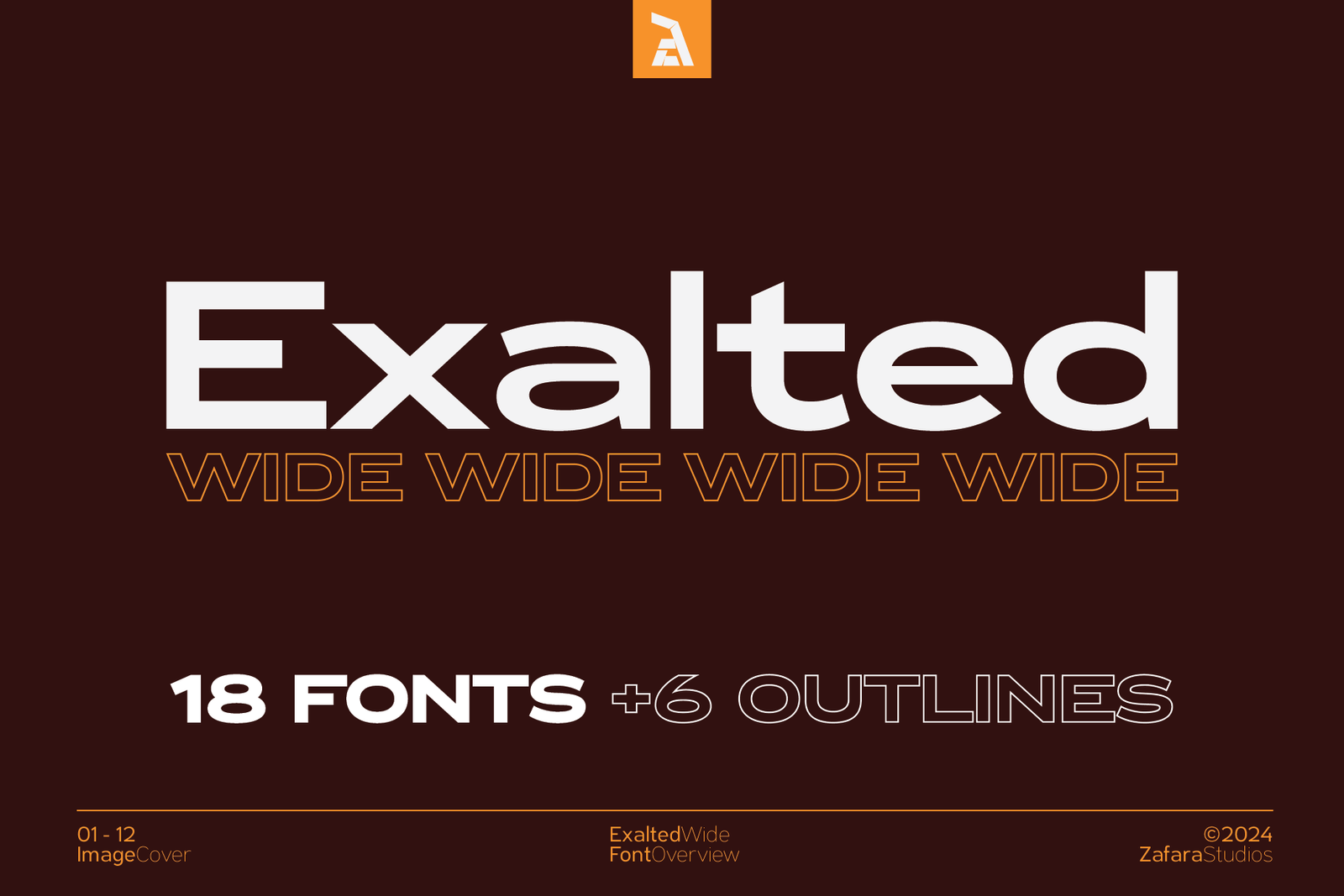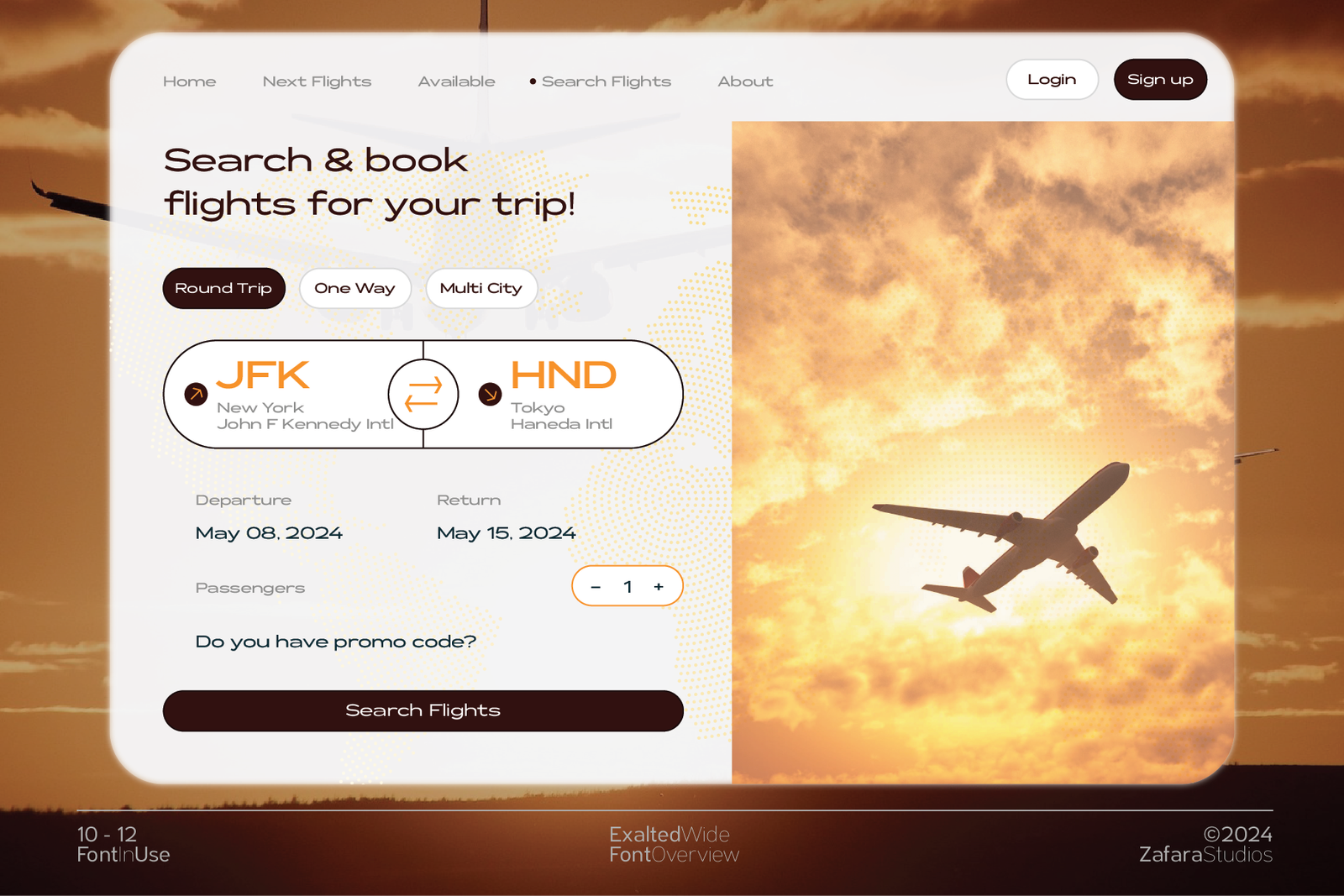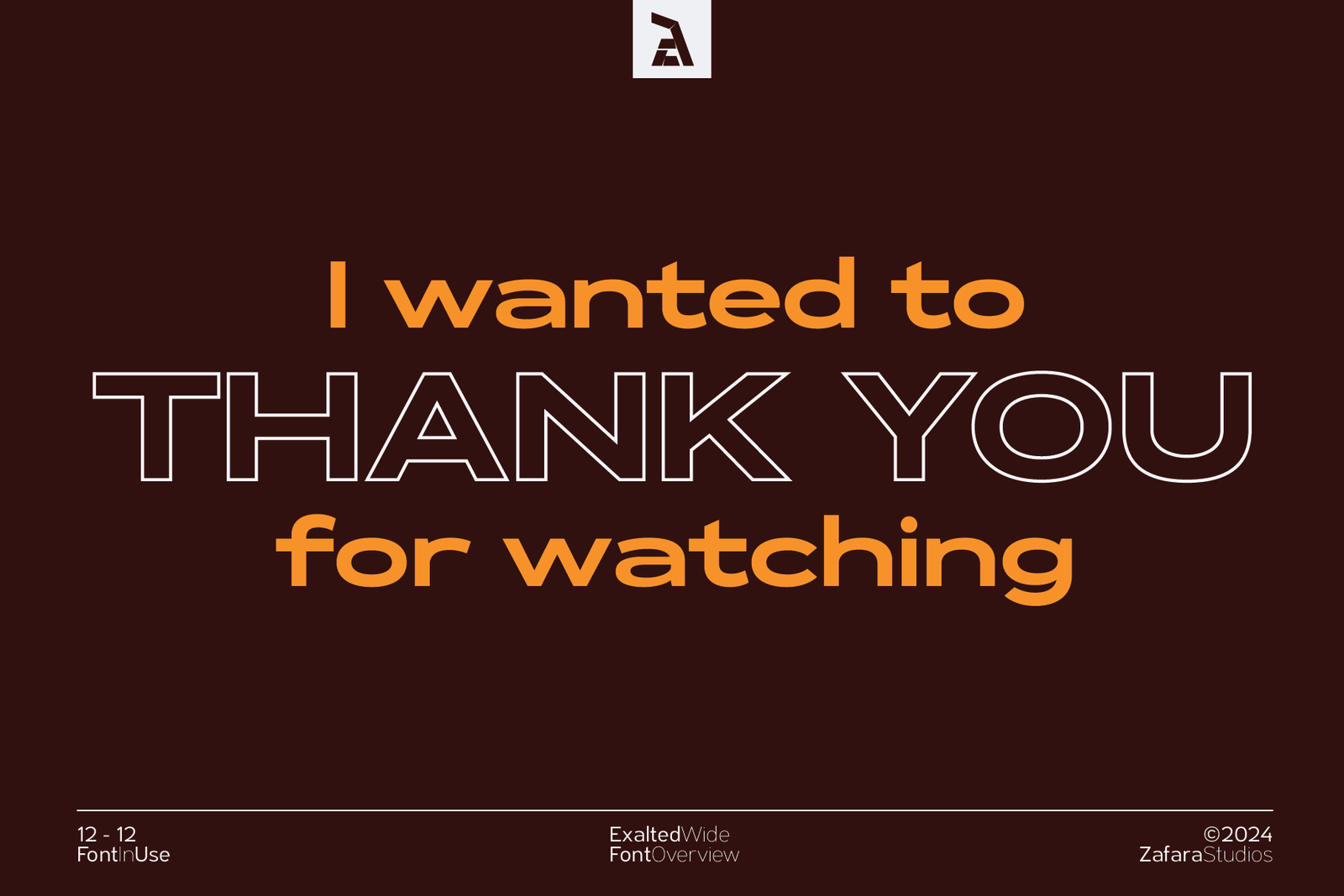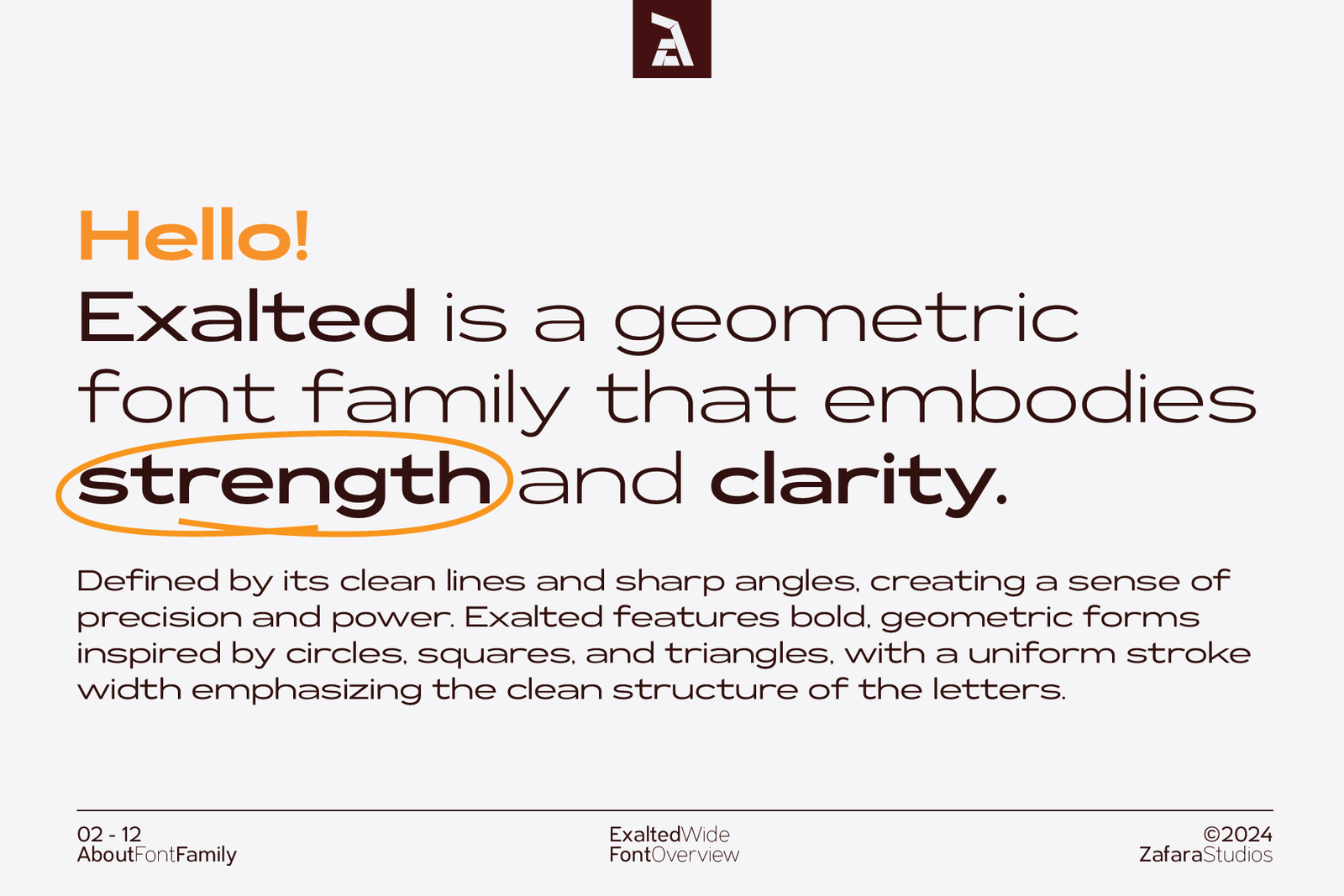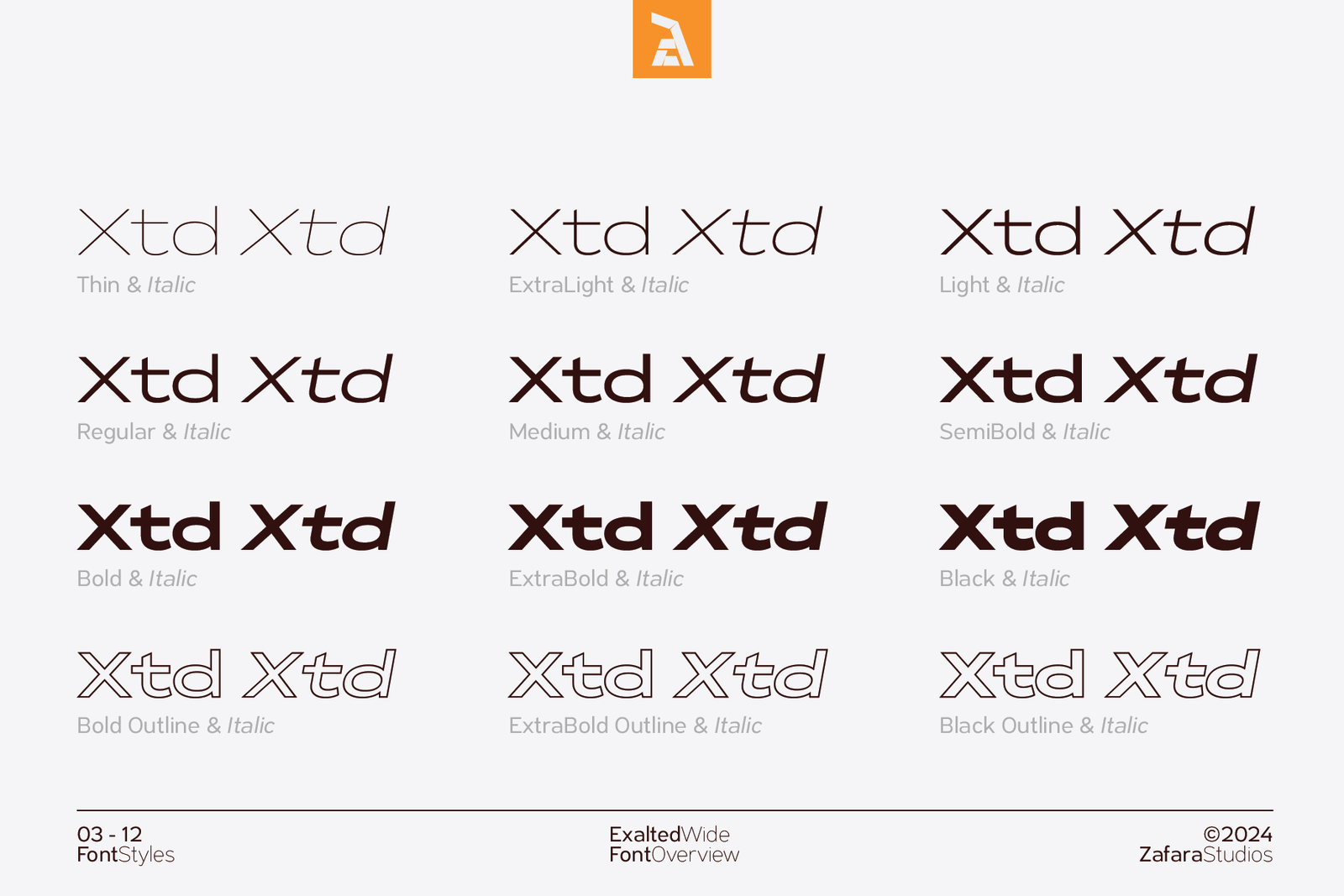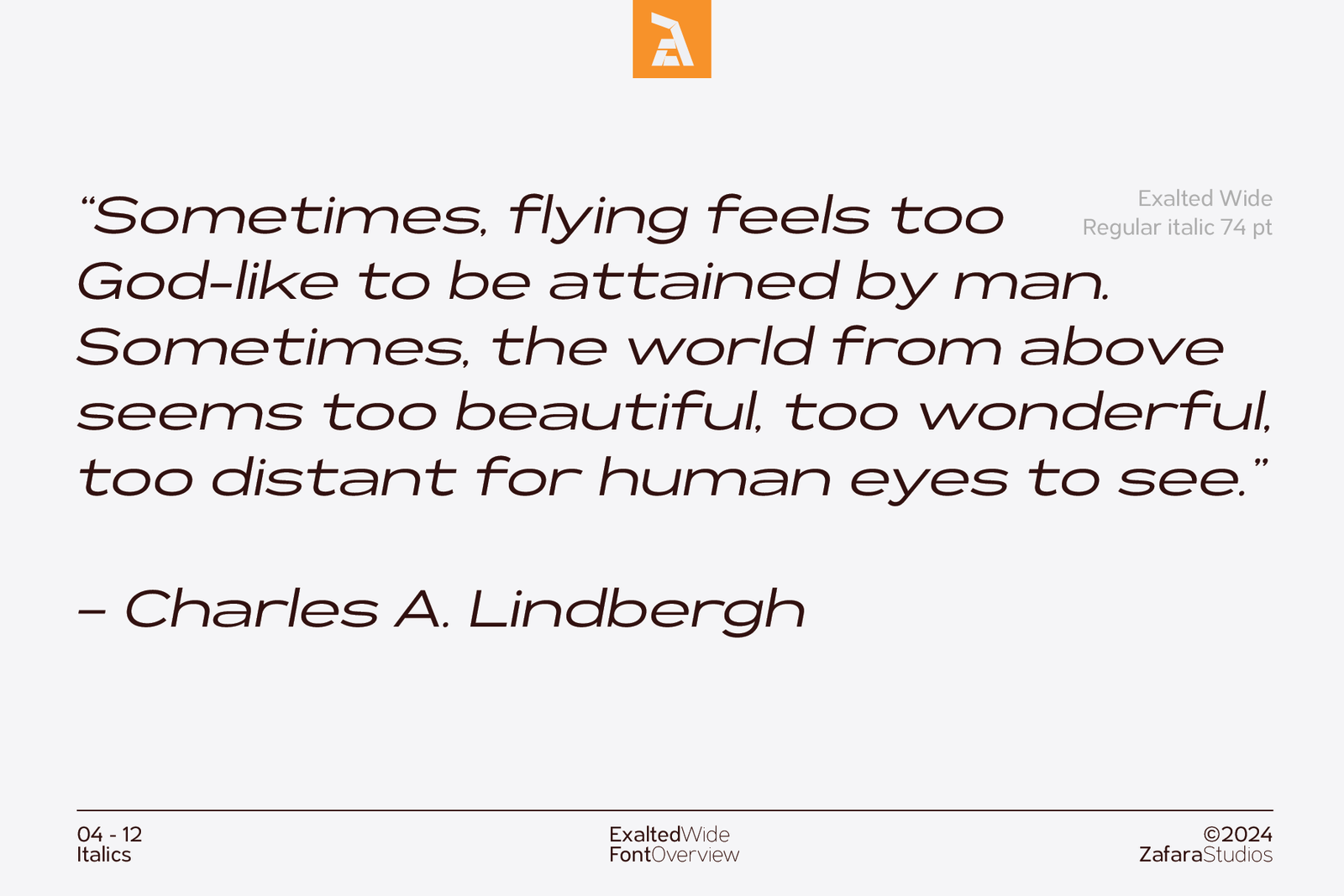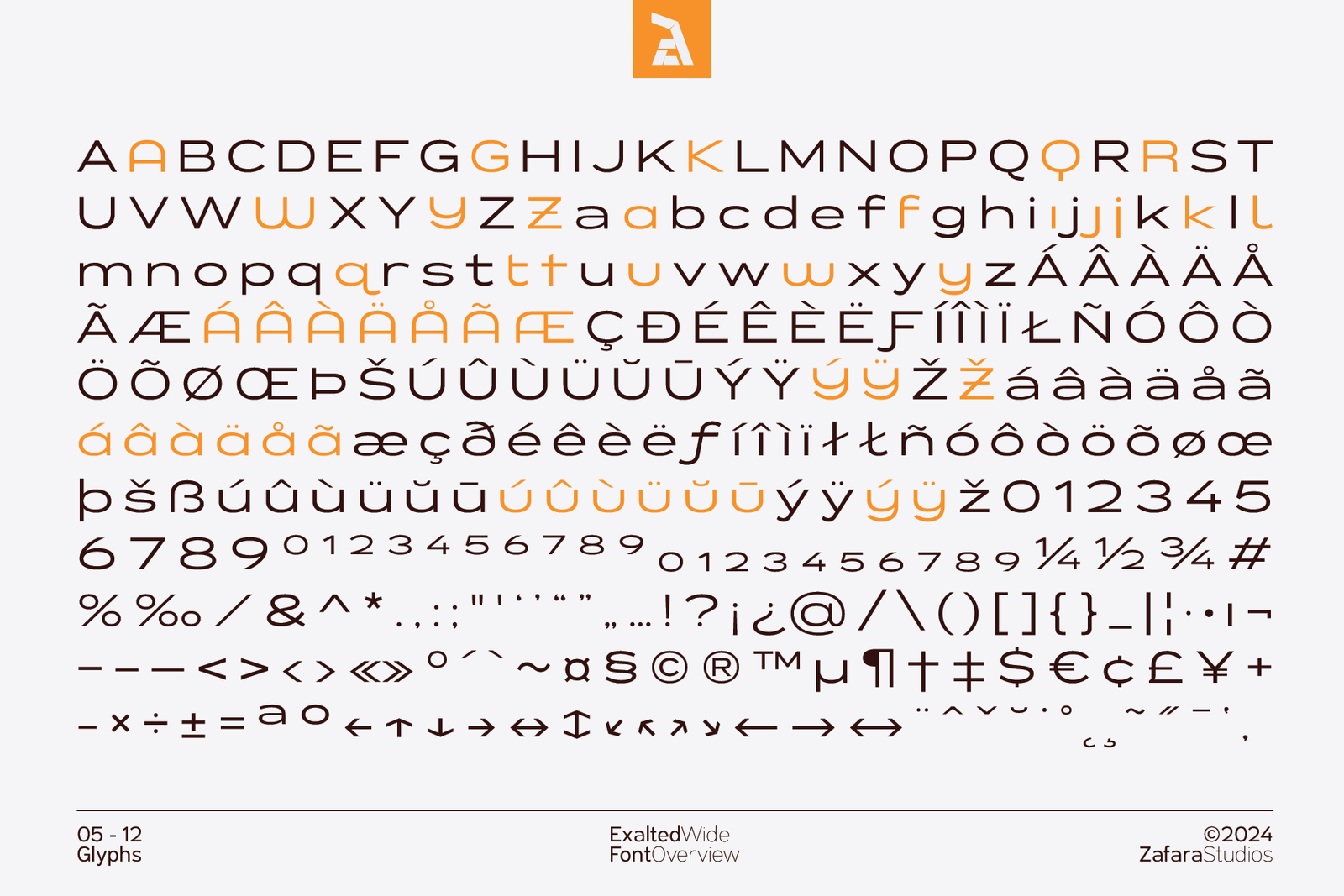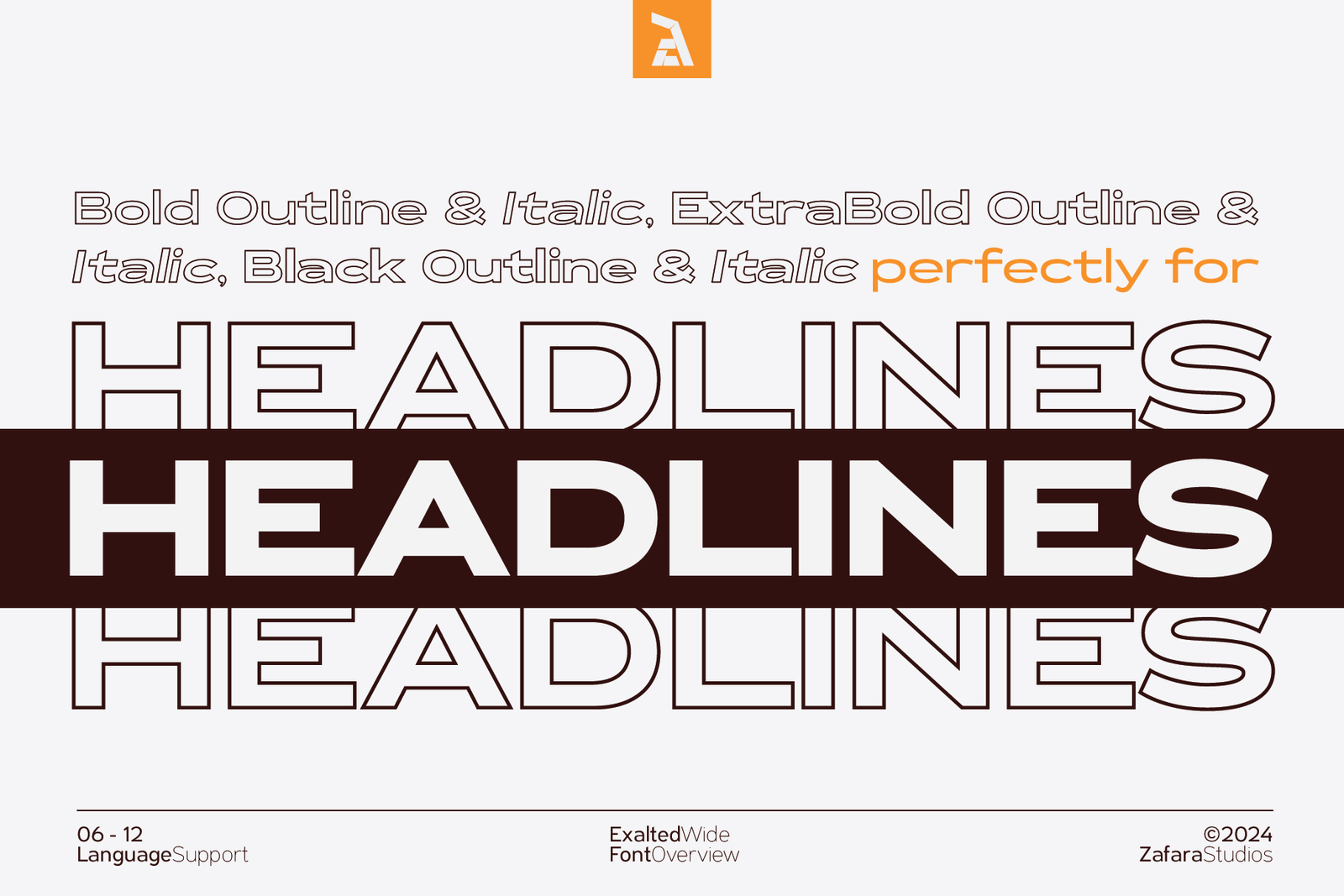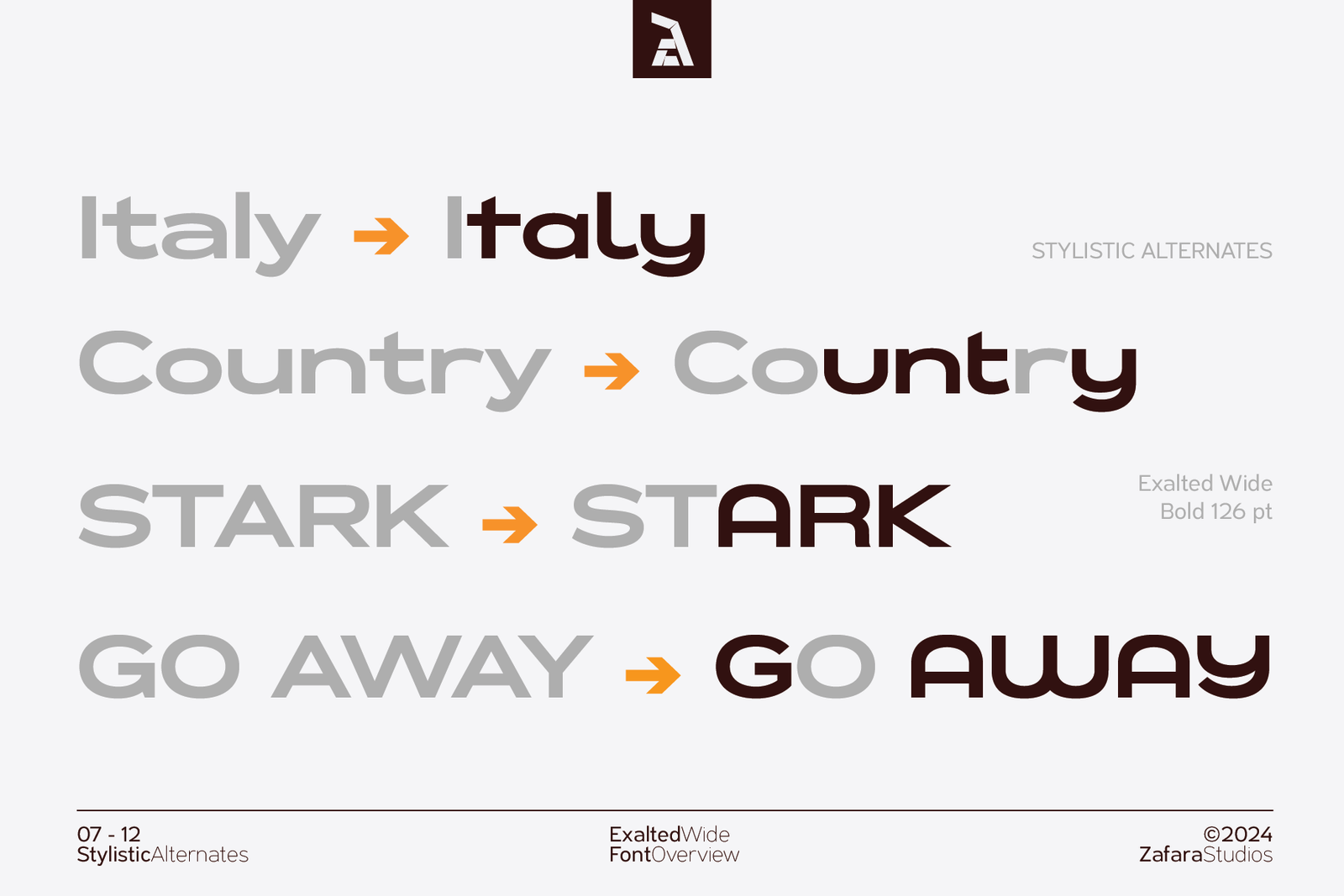
The cover image for the Exalted Wide font family, showing the font name and stating that it includes 18 fonts and 6 outlines on a dark brown background.
A slide explaining that Exalted Wide is a geometric font that embodies "strength and clarity," with a description of its clean lines and wide forms.
A complete visual overview of the Exalted Wide font family's 18 styles, including various weights from Thin to Black and their italic and outline versions.
A quote from Charles A. Lindbergh is set in the Exalted Wide Regular Italic font, demonstrating its elegant, readable, and wide slanted form.
A comprehensive display of the Exalted Wide font's full glyph set, including all uppercase and lowercase letters, numbers, symbols, and multilingual characters.
The word "HEADLINES" is displayed in various Exalted Wide font styles, including outline and solid versions, to show how it's perfect for headlines.
Examples of stylistic alternate letters in the Exalted Wide font, showing how words like "Italy" and "Country" can be modified for unique typographic styles.
A mock-up magazine article from "FLIGHTMAGZ" using the Exalted Wide font for the headlines and body text, showing its readability and application in print.
A travel poster with the headline "YOUR GATEWAY to ADVENTURE" in Exalted Wide font, combining solid and italic styles over an airport runway photo.
A modern flight booking website UI mockup using the Exalted Wide font for all text fields, headings, and buttons, showcasing its use in digital design.
A list of aviation-related words like "Takeoff," "Passenger," and "Gates 1-15" shown in various weights and styles of the Exalted Wide font.